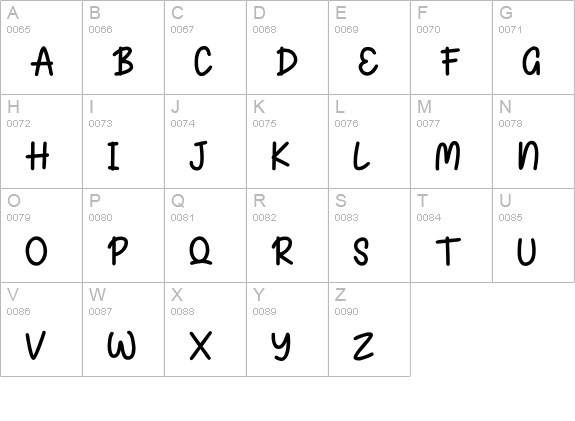
Wonderkids Font Details
Introducing Wonderkids font, a whimsical and playful typeface that is sure to bring a touch of magic to your designs. Designed with creativity in mind, Wonderkids is perfect for children's books, invitations, posters, and more.
This charming font features a delightful mix of rounded edges and quirky details, making it a standout choice for any project that needs a fun and energetic feel. With its unique style and cheerful personality, Wonderkids is sure to capture the imagination of both kids and adults alike.